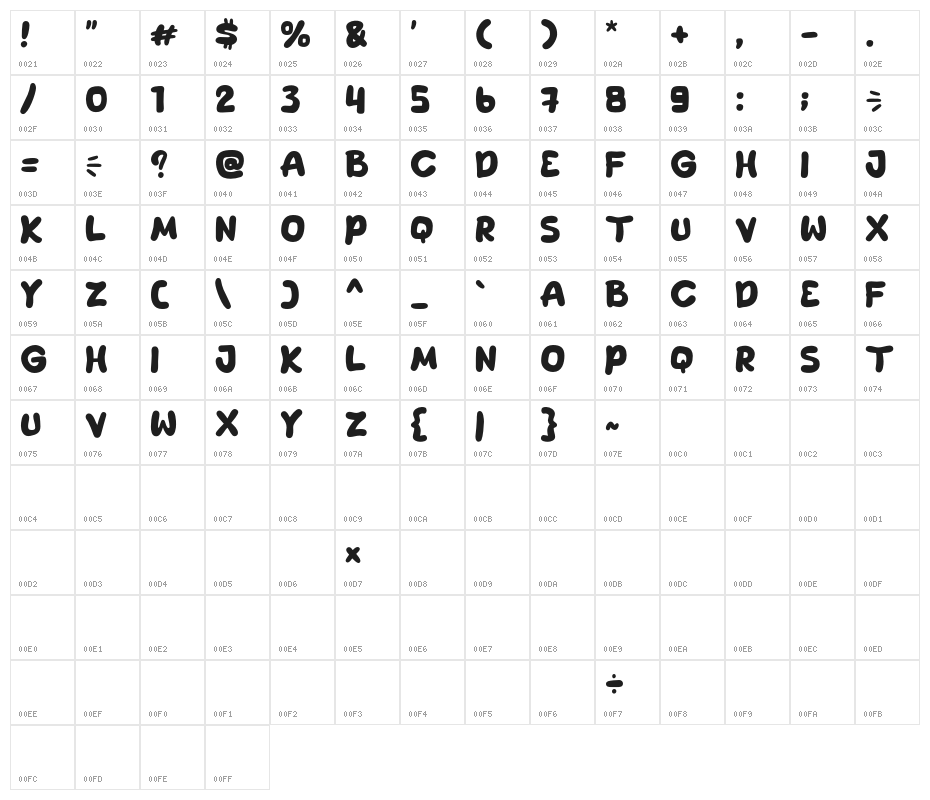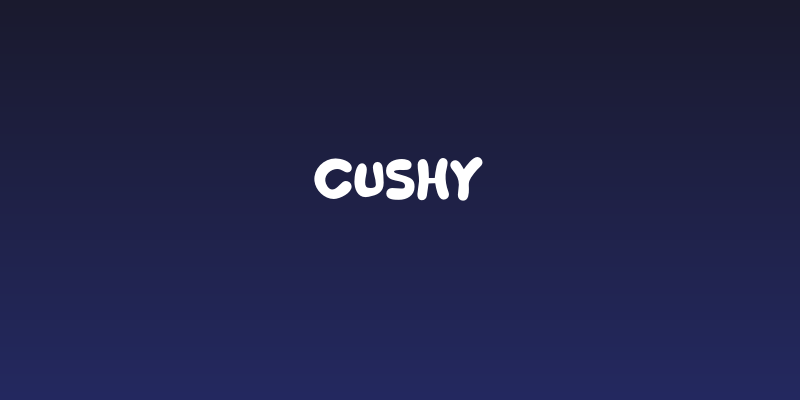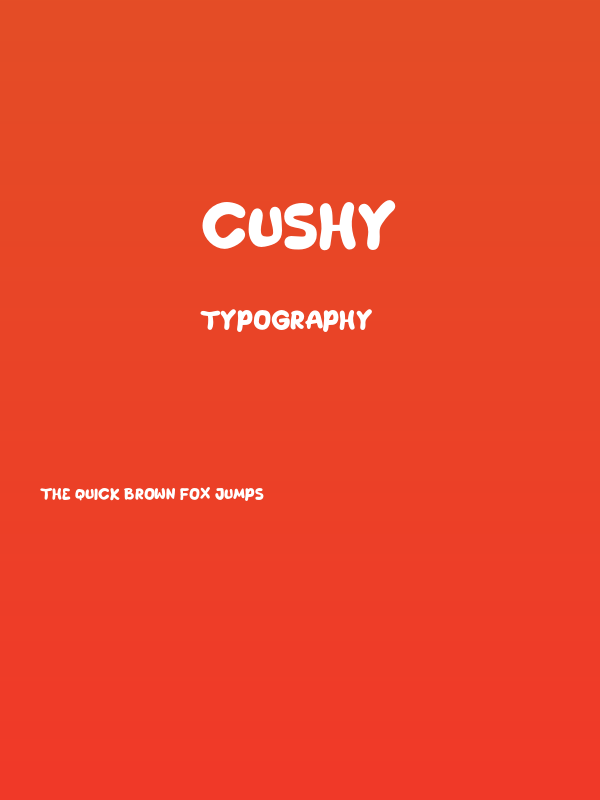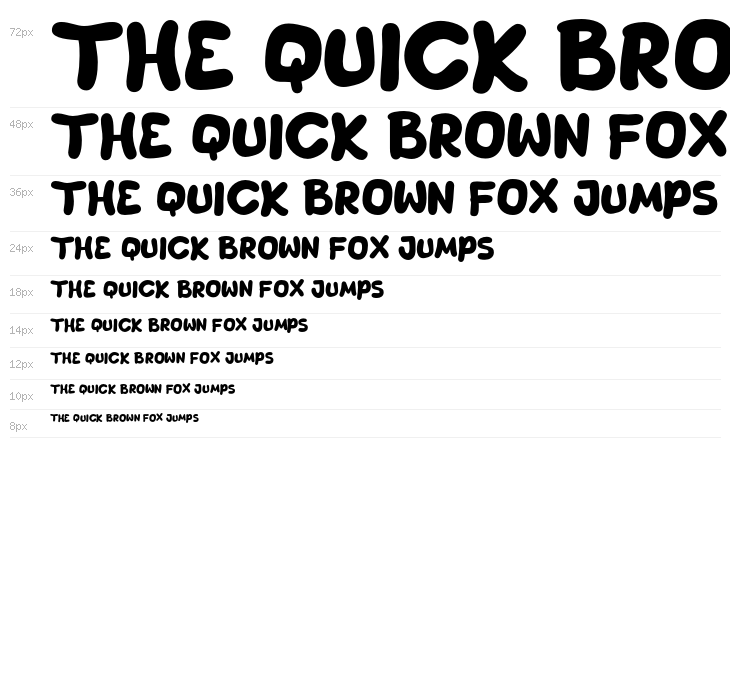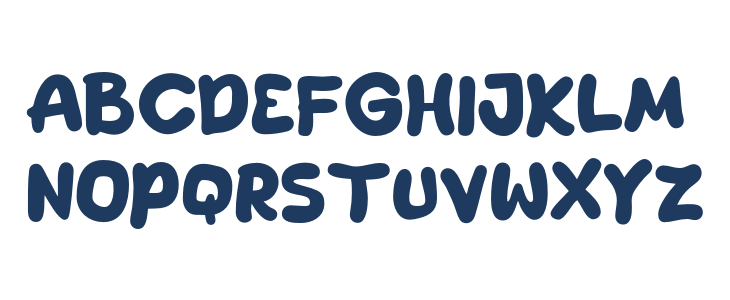
Cushy Font
Cushy Description
This playful and bold font features rounded, bubbly characters that exude a sense of fun and whimsy. The letters are thick and have a uniform stroke width, giving them a strong presence on the page. The overall design is reminiscent of hand-drawn lettering, with a casual and approachable feel. The numbers and special characters maintain the same playful style, making the font versatile for various uses. Its unique style makes it stand out, perfect for projects that require a touch of creativity and personality.
| Proposed Projects | Ideal for children's books, playful branding, posters, and creative projects that require a fun and approachable typeface. |